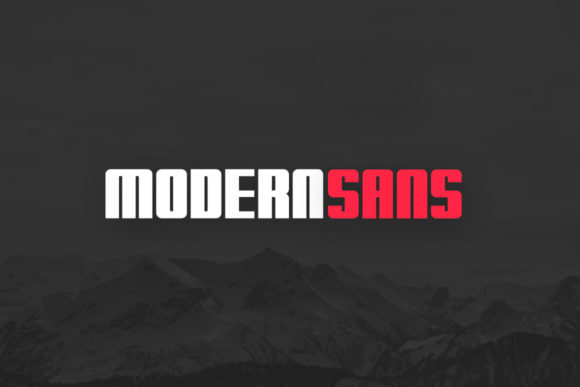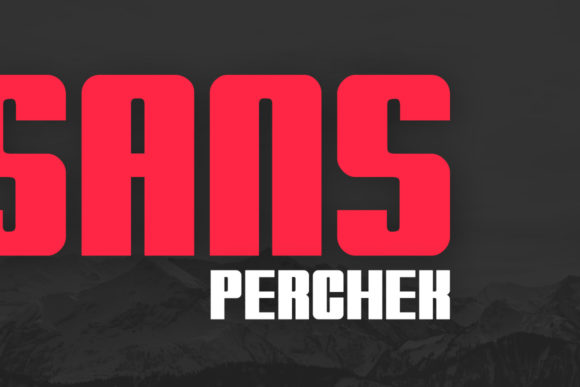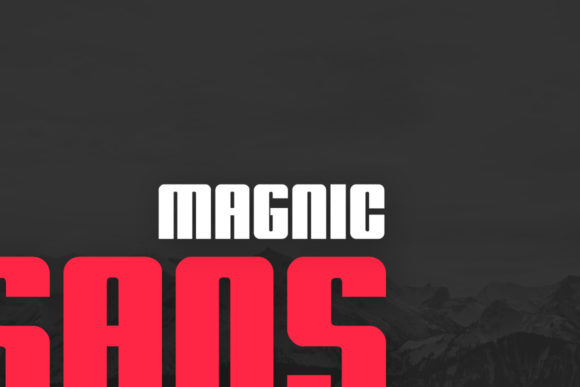
Introducing Bonice Font: The Assertive and Authentic Display Font for Creative Minds
Are you a designer, crafter, or creative enthusiast looking for a font that can elevate your projects to new heights? Look no further than Bonice Font, an assertive and authentic display font designed to bring your ideas to life. In this article, we’ll dive into the world of Bonice Font, exploring its features, benefits, and uses, and why it’s about to become your new favorite font.
The Story Behind Bonice Font
Bonice Font is the brainchild of talented font designers who aimed to create a unique and versatile typeface that can be used in a variety of creative projects. With its masterful design, Bonice Font is poised to become a staple in the world of typography, offering a fresh and exciting alternative to traditional fonts.
What Makes Bonice Font So Special?
So, what sets Bonice Font apart from other display fonts on the market? Here are just a few of its standout features:
- Assertive and Authentic: Bonice Font exudes confidence and authenticity, making it perfect for projects that require a bold and eye-catching typeface.
- Masterfully Designed: With its carefully crafted letterforms and attention to detail, Bonice Font is a true masterpiece of font design.
- Versatile: Whether you’re working on a logo, brochure, or social media graphic, Bonice Font can adapt to any design style or project requirement.
- Unique: With its distinctive character and flair, Bonice Font is sure to make your projects stand out from the crowd.
Benefits of Using Bonice Font
By incorporating Bonice Font into your design projects, you can enjoy a range of benefits, including:
- Enhanced Creativity: With Bonice Font, you can unleash your creativity and bring your ideas to life in a bold and exciting way.
- Increased Legibility: Despite its bold and assertive nature, Bonice Font remains highly legible, making it perfect for use in a variety of contexts.
- Professional-Grade Results: With Bonice Font, you can achieve professional-grade results that are sure to impress clients and colleagues alike.
- Endless Possibilities: From branding and advertising to packaging and digital design, Bonice Font can be used in a wide range of applications.
Who Can Benefit from Bonice Font?
Bonice Font is an excellent choice for a variety of creative professionals and enthusiasts, including:
- Graphic Designers: Add a bold and assertive touch to your designs with Bonice Font.
- Crafters: Use Bonice Font to add a personal touch to your handmade projects and crafts.
- Digital Artists: Bring your digital art to life with the unique and versatile Bonice Font.
- Marketers and Advertisers: Use Bonice Font to create eye-catching and effective marketing materials.
| Author | BeeType |
In conclusion, Bonice Font is an assertive and authentic display font that has the potential to elevate your creative projects to new heights. With its masterful design, versatility, and unique character, Bonice Font is poised to become a true favorite among designers, crafters, and creative enthusiasts. So why wait? Download Bonice Font today and discover a world of limitless creative possibilities!